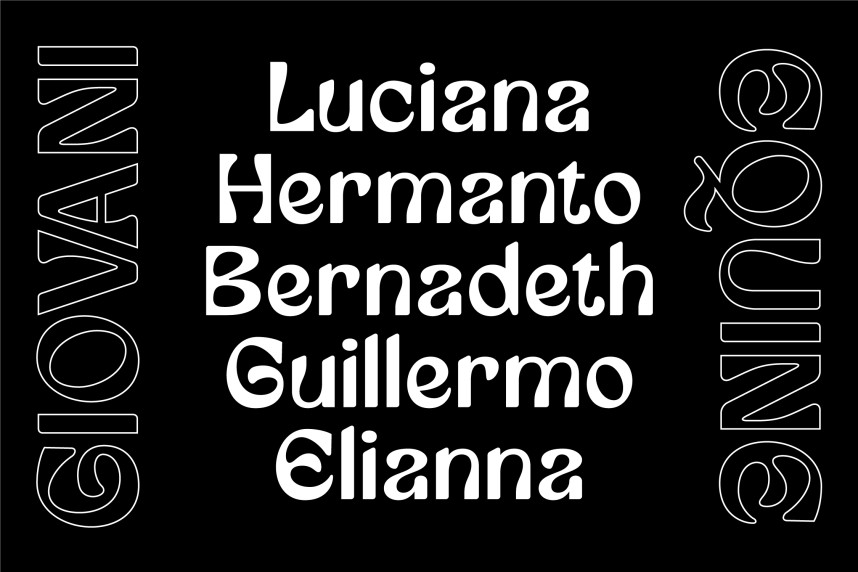
Giovani Equine Font is a very stylish font with letters that seem to dance and harmoniously intertwine with each other, creating a unique and elegant typographic design. Giovani Equine is ideal for logos, posters, packaging, banner, and other creative projects that demand visually aesthetic and distinctive elements.